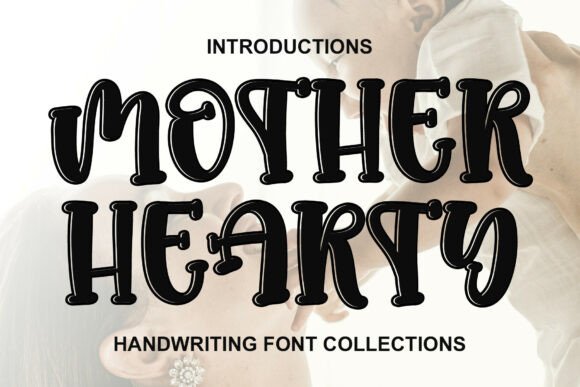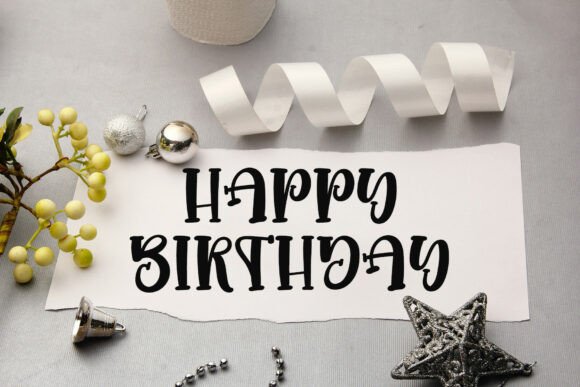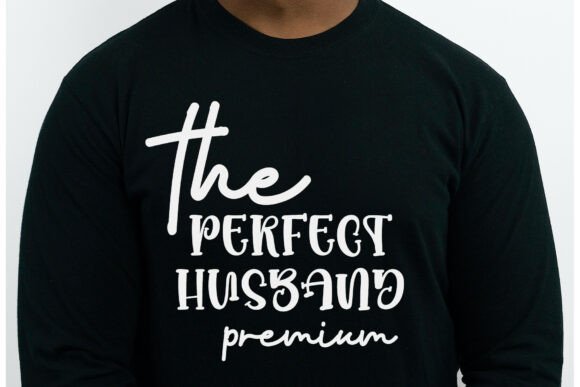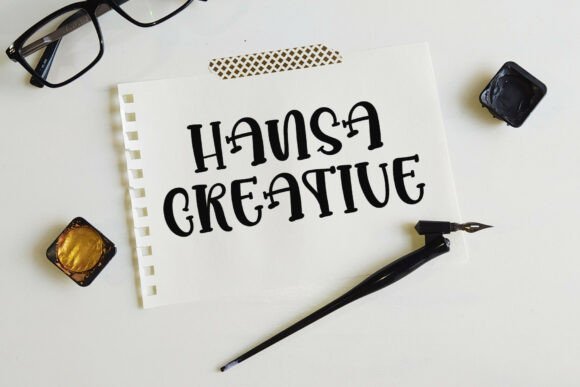
Mother Hearty Font
About the Mother Hearty Font
Crafted with precision, the Mother Hearty Font is ready to bring your ideas to life. Mother Hearty is a beautifully crafted display handwriting font that blends elegance with a modern, artistic touch. Its flowing strokes and well-balanced curves create a sophisticated yet approachable feel, making it the perfect font choice for those who want to add a touch of class and personality to their designs.
Mother Hearty excels in display applications such as logos, short headlines, and invitations where its elegant yet approachable nature shines. It’s ideal for branding projects targeting a sophisticated yet friendly audience, particularly in the fashion, beauty, or lifestyle sectors. Avoid using it for body text or lengthy paragraphs; its decorative style isn’t legible at smaller sizes.
Pairing Mother Hearty with a clean sans-serif like Montserrat or a classic serif like Garamond creates a balanced aesthetic. For a more modern feel, consider pairing it with a geometric sans-serif such as Futura. These pairings provide readability where Mother Hearty lacks it, while retaining the overall elegance and sophistication.
The font possesses a distinctly modern yet warm personality; bold but not overwhelming, elegant but accessible. Its carefully balanced forms suggest sophistication without appearing cold or aloof.
Mother Hearty Font Usage Examples
Mother Hearty Font Example